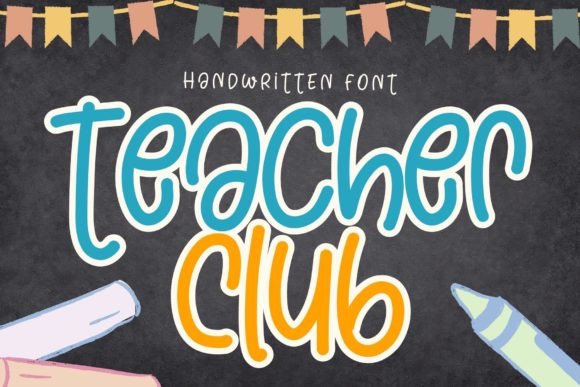
Introducing Teacher Club Font, a captivating handwritten script that exudes playfulness and authenticity, ready to transform your creative projects into masterpieces. Crafted with meticulous care by Brown Cupple Fonts, Teacher Club is the ultimate choice for designers, bloggers, and creative entrepreneurs seeking a font that speaks to the heart.
With its charming and inviting style, Teacher Club effortlessly adds a personal touch to your creations. Picture your blog posts, logos, branding, and advertisements bursting with character and warmth, making an unforgettable impression on your audience. Let Teacher Club be the voice that conveys your unique message, resonating with your readers and customers on a deeper level.
Dive into a world of endless possibilities with Teacher Club. Its versatility knows no bounds, whether you're crafting stunning invitations, heartwarming greeting cards, or stylish planners. Let your imagination run wild as you design eye-catching photo albums, delightful decorations, and more. Every project infused with Teacher Club's magic becomes a reflection of your passion and creativity.
Unlock the power of Teacher Club and elevate your designs to new heights. Experience the joy of creating beautiful and engaging content that captivates your audience. Each letter, meticulously crafted, carries the essence of playfulness and authenticity, promising to infuse your work with a touch of charm and personality.